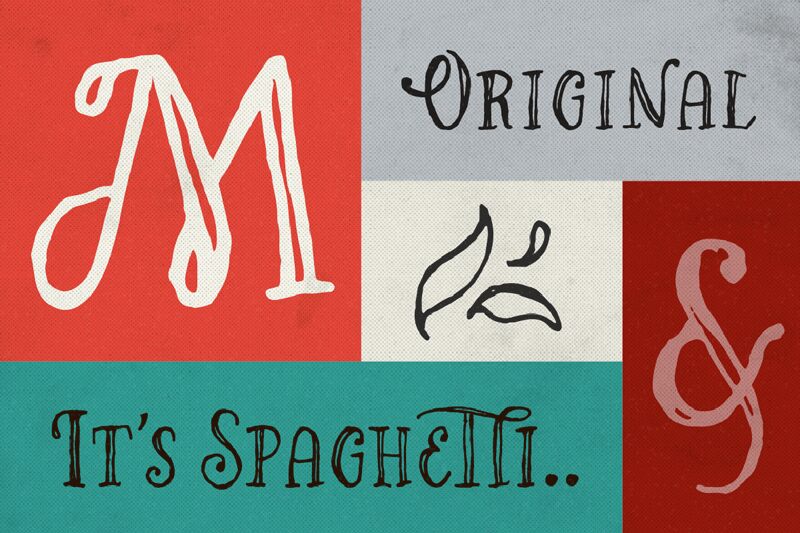
Fetani Extras is an exquisite dingbat font that adds a touch of elegance to any project. Designed by Renof Olivian, this semi-light typeface boasts intricate details and unique shapes that will transform your design into a work of art. Perfect for creating ornamental borders, embellishments, and typography compositions, Fetani Extras offers endless possibilities for graphic designers, artists, and creatives in search of something special. From wedding invitations and packaging to branding materials and social media graphics, this font is suitable for any project that requires delicate yet sophisticated elements. Add a touch of Fetani Extras to your design today!
Fetani Extras